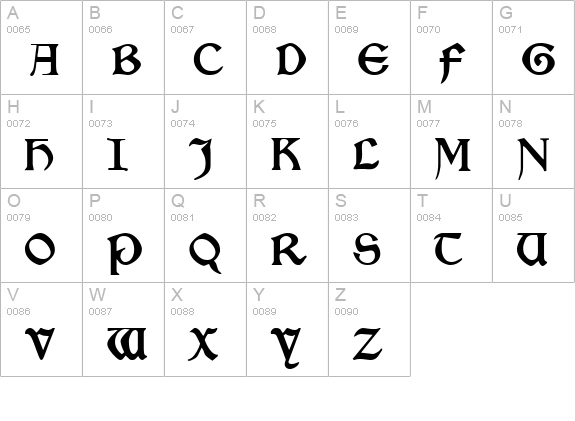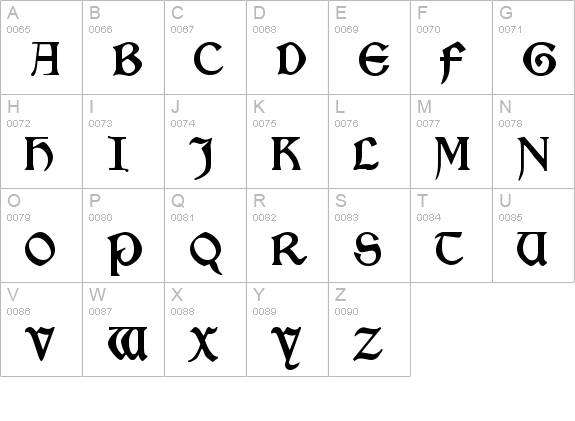
Kelmscott Regular Font Details
Kelmscott Regular is the standard, neutral variant in the Kelmscott typeface family \xE2\x80\x94 well suited to general body text, paragraphs, and standard typographic work.
Kelmscott Regular is a timeless font that exudes elegance and sophistication. Its clean lines and classic letterforms make it the perfect choice for any project that requires a touch of refinement. Whether you're designing a logo, creating a book layout, or crafting a memorable brand identity, Kelmscott Regular will elevate your work to new heights. This font is not only visually stunning, but it also offers a sense of versatility that is hard to find. Its balanced proportions and carefully crafted strokes ensure readability across various mediums and sizes, making it suitable for both print and digital applications. With Kelmscott Regular, your message will shine through effortlessly, capturing the attention of your audience with its understated yet impactful presence. What sets Kelmscott Regular apart from other fonts is its accessibility. This font is freely available to download at FontsMarket.com, allowing designers and creatives of all backgrounds to enjoy its beauty and functionality. Gone are the days of expensive font licenses or limited choices. With Kelmscott Regular, you have the freedom to bring your ideas to life without any restrictions. So, whether you're a seasoned professional or a budding designer, Kelmscott Regular is the perfect addition to your font collection. Its timeless charm, versatility, and free availability make it a must-have for anyone seeking to create captivating and impactful designs. Download Kelmscott Regular today and let your creativity soar.